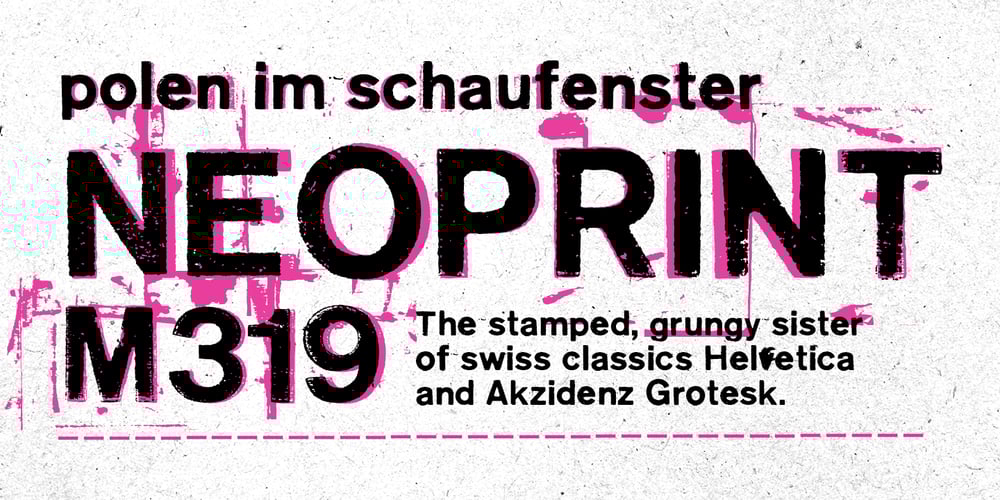
PiS Neo Print M319 Font Family was designed by Hannes Siengalewicz and published by PiS. PiS Neo Print M319 contains 3 styles and family package options. The NeoPrintM319 family is based on a set of old rubber stamps, featuring Helvetica-like letters. Due to popular demand, this version of NeoPrintM319 includes two additional weights. You can use a completely new set of tidier characters for a cleaner, sleeker look and longer texts. For more dirty headline-fun there is a stamped version with blushed out characters and lots of grit. The regular version of NeoPrintM319 contains ligatures and contextual alternates for a more authentic and hand-crafted look and all your Eastern European characters for polished font fun.